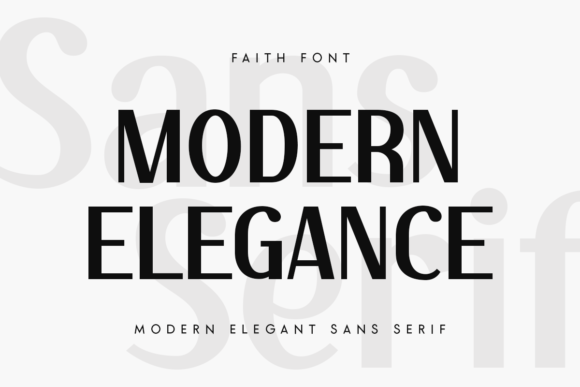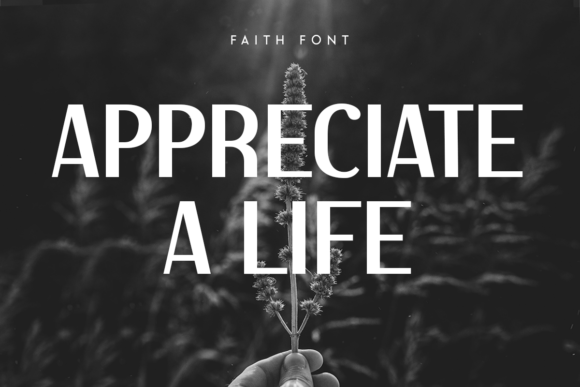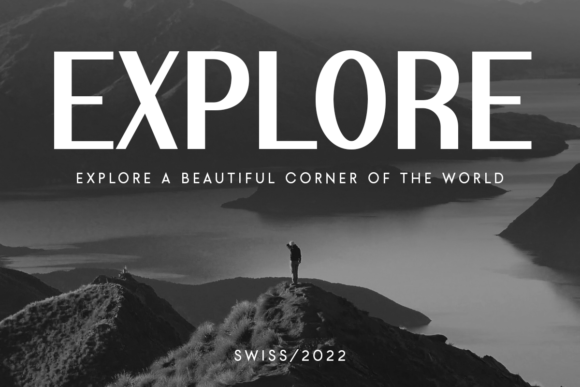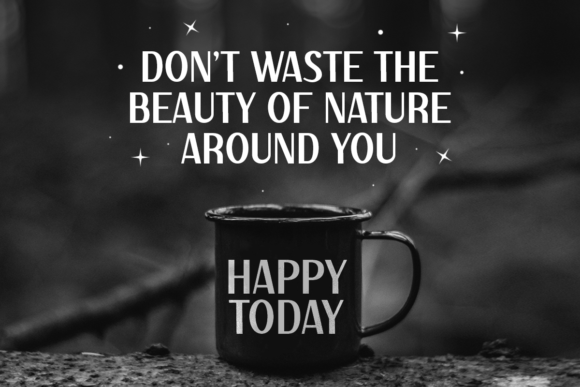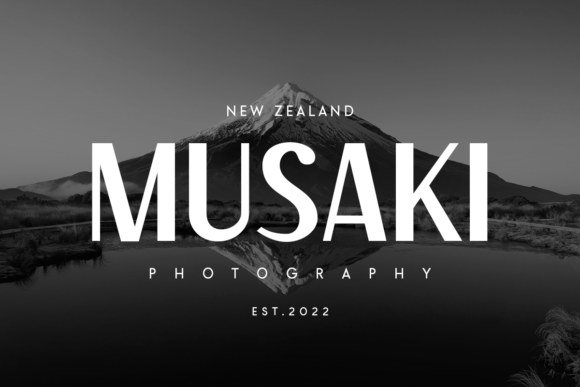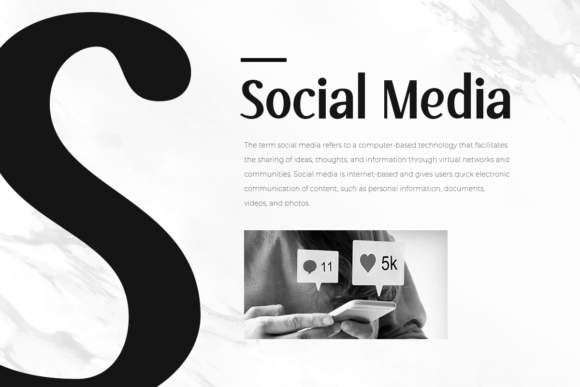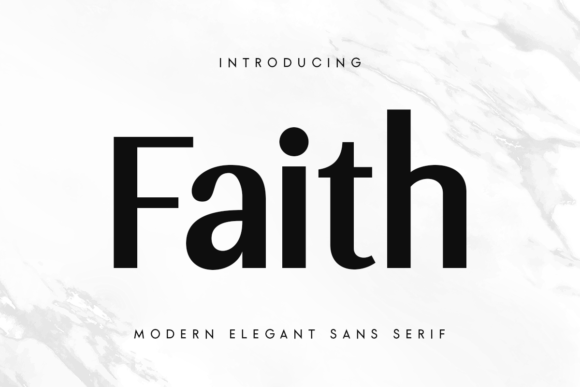
Introducing Faith Font: Elevate Your Designs with Modern Elegance
Are you on the hunt for a font that exudes modernity and sophistication? Look no further than Faith Font, a stunning sans-serif typeface that’s perfect for designers and crafters seeking to elevate their creative projects. In this article, we’ll dive into the world of Faith Font, exploring its features, benefits, and uses, as well as provide tips on how to make the most of this beautiful font.
What is Faith Font?
Faith Font is a sleek and contemporary sans-serif font designed to bring a touch of elegance to your designs. Its clean lines, precise curves, and balanced proportions make it an excellent choice for a wide range of applications, from digital projects to print materials. Whether you’re working on a logo, brochure, website, or social media graphics, Faith Font is sure to make a lasting impression.
Key Features of Faith Font
- Modern and Elegant Design: Faith Font boasts a fresh and sophisticated look that’s perfect for designs that require a touch of luxury and refinement.
- Versatile and Adaptable: This font is highly versatile and can be used in various contexts, from headings and titles to body text and captions.
- Excellent Legibility: Faith Font features clear and precise letterforms, ensuring excellent legibility even at small font sizes.
- Easy to Pair: Faith Font pairs well with a wide range of fonts, making it easy to create harmonious and visually appealing typography combinations.
Benefits of Using Faith Font
So, why should you choose Faith Font for your next project? Here are just a few benefits of using this amazing font:
- Enhance Your Brand’s Image: Faith Font’s modern and elegant design can help elevate your brand’s image and convey a sense of sophistication and professionalism.
- Stand Out from the Crowd: With Faith Font, you can create designs that stand out from the competition and leave a lasting impression on your audience.
- Save Time and Effort: Faith Font is easy to use and doesn’t require a lot of manual adjustments, saving you time and effort in the design process.
Creative Ways to Use Faith Font
Faith Font is an incredibly versatile font that can be used in a wide range of creative projects. Here are some ideas to get you started:
- Logos and Branding: Use Faith Font to create a modern and sophisticated logo that reflects your brand’s values and personality.
- Print Materials: Faith Font is perfect for brochures, flyers, posters, and other print materials that require a touch of elegance and refinement.
- Digital Projects: Use Faith Font in your website designs, social media graphics, and digital ads to create a cohesive and professional look.
- Crafting and DIY Projects: Faith Font can also be used in crafting and DIY projects, such as making custom signs, cards, and invitations.
Tips for Using Faith Font
To get the most out of Faith Font, here are some tips to keep in mind:
- Experiment with Font Sizes: Faith Font looks great at various font sizes, so don’t be afraid to experiment and find the perfect size for your project.
- Pair with Other Fonts: Faith Font pairs well with many other fonts, so try combining it with different typefaces to create interesting and unique typography combinations.
- Adjust Letter Spacing: Adjusting the letter spacing can help improve the overall look and feel of your text, so don’t hesitate to experiment with different settings.
In conclusion, Faith Font is an exceptional sans-serif font that’s perfect for designers and crafters seeking to add a touch of modern elegance to their creative projects. With its clean design, versatility, and excellent legibility, Faith Font is sure to become a staple in your font collection. So why wait? Download Faith Font today and experience the difference it can make in your designs!